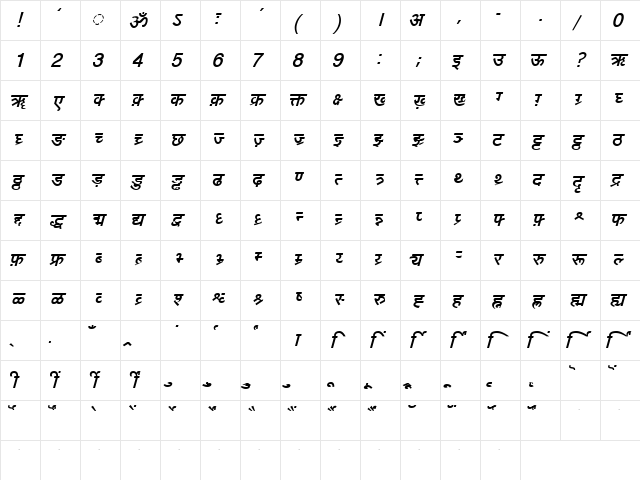
DV-TTYogeshEN BoldItalic
Design Context for DV-TTYogeshEN Typeface
DV-TTYogeshEN takes a measured approach to typography — its balanced proportions and neutral character make it a reliable workhorse for both digital and print work. The slanted form adds forward momentum and visual energy. The heavy weight commands attention and anchors typographic hierarchies.
Pro Tip: Use DV-TTYogeshEN for emphasis, pull quotes, and subheadings where its slanted energy can add rhythm to the layout.